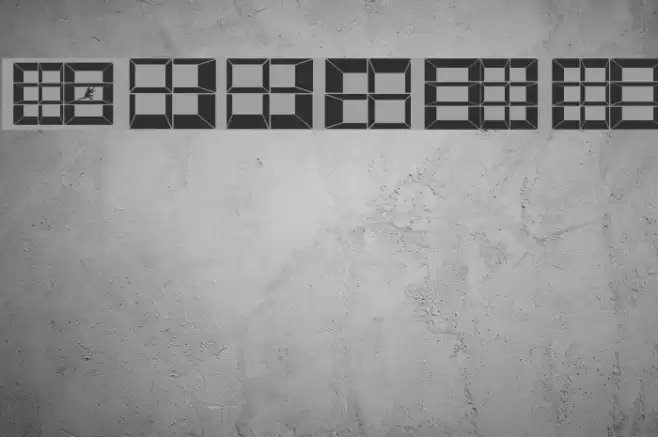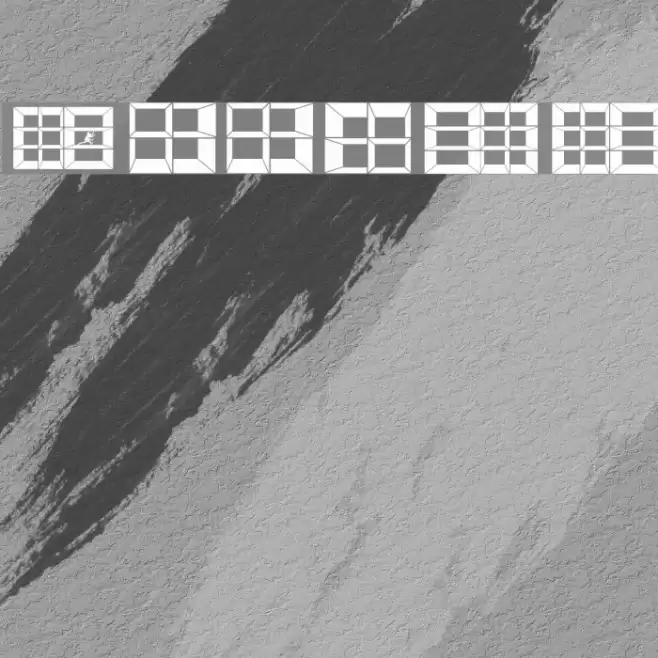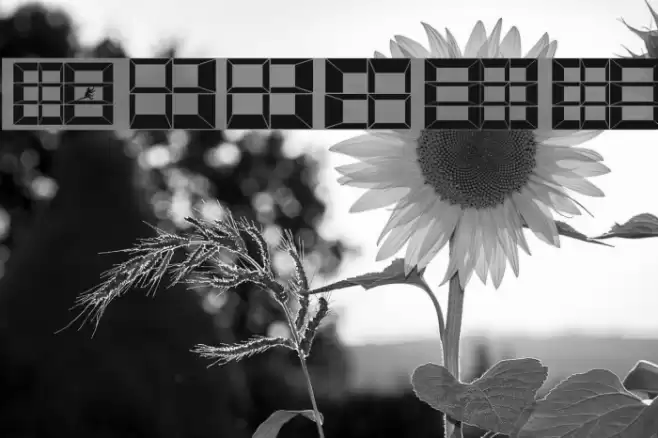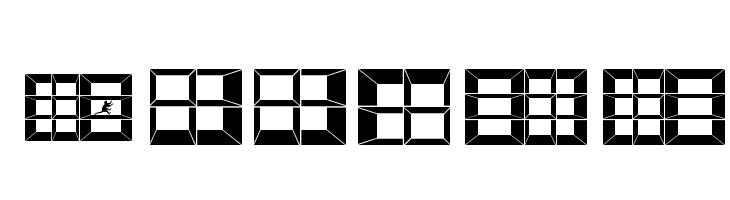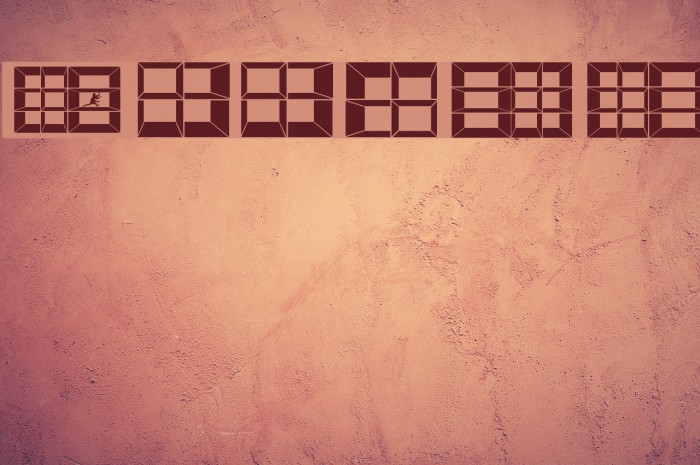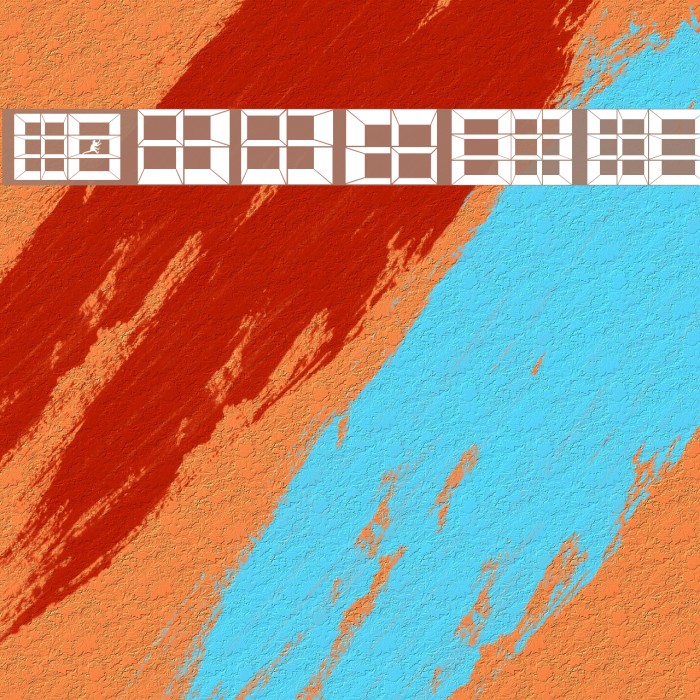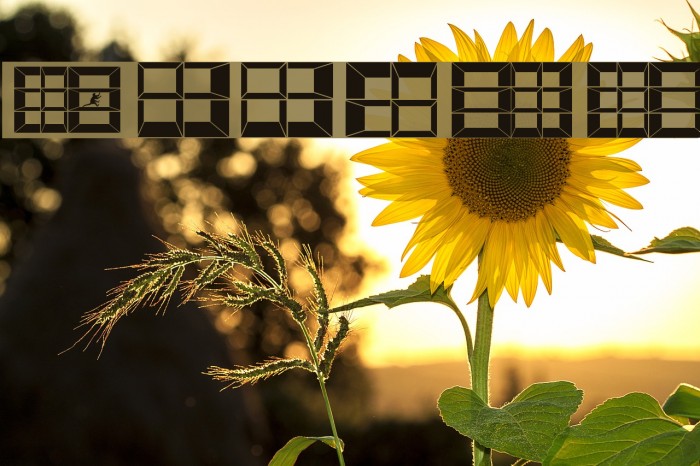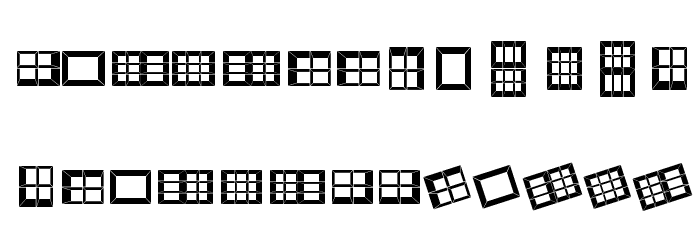
Stages Font
Stages Description
This font features a unique, decorative style with a grid-like pattern within each character. The letters are bold and have a three-dimensional appearance, resembling a window or a checkerboard design. Each character is enclosed in a square or rectangular frame, adding to the structured and geometric aesthetic. The font is highly stylized, making it stand out with its intricate internal patterns and solid outlines. It is not suitable for body text due to its complexity but can be highly effective for artistic and creative projects where a distinctive and eye-catching typeface is desired.
A bold, decorative font with a grid-like, three-dimensional design from Uncategorized fonts.
- Proposed Projects: Ideal for posters, album covers, artistic projects, and branding that requires a unique and striking visual element.
- Use Case: Logos, Headlines, Artistic projects